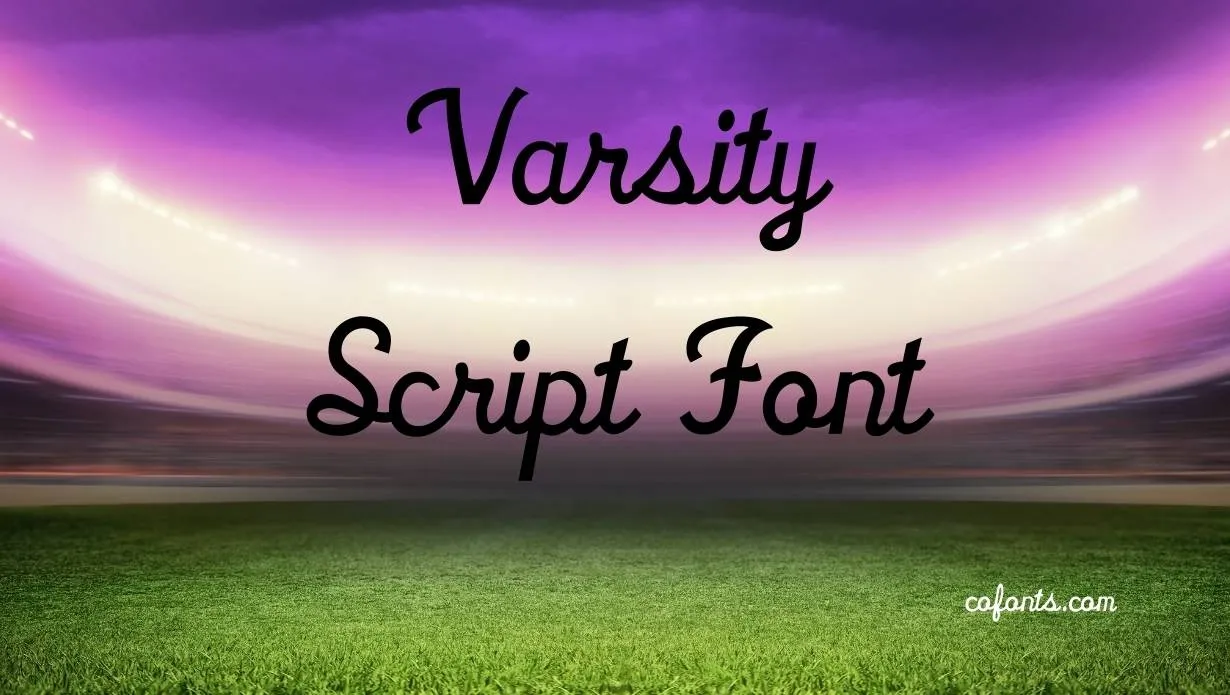
Introducing a wonderful typeface with pure and neat handwritten style character that is known as Varsity Script Font. This blooming and decorative style typeface is designed by Jason Walcott and I think the designer made the typeface with efficiency and opportunity because the font’s letterforms are so awesome and its readability is so breathtaking for the user and viewer. It belongs to the script family and provides quite a condensed feeling on the design layout.
The typeface is full of characteristics and can be work-friendly on any kind of display and print-based design. It has uppercase and lowercase letters, numbers, and numerals, and uses punctuation marks also. If you want to pair the typeface with another fabulous typeface like that then Bonfire Font would be suitable for you.
The designer may get the concept from other script-style typefaces and then made this gorgeous font which can be utilized in many individual designs and other in-house purposes.
Usage of Varsity Script Font
Varsity Script Font Family View
Varsity Script Font Family (Includes 1 Typeface)
• Varsity Script JF
What type of typeface is Varsity Script?
The typeface family belongs to the script family and has been designed by Jason Walcott. It is very great for your wallpapers and feminine designs also.
Is Varsity Script Font easy to read?
The font style is very sharp and bold letterforms visual, it is a very common typeface for fabulous typography projects and is very legible for the users.